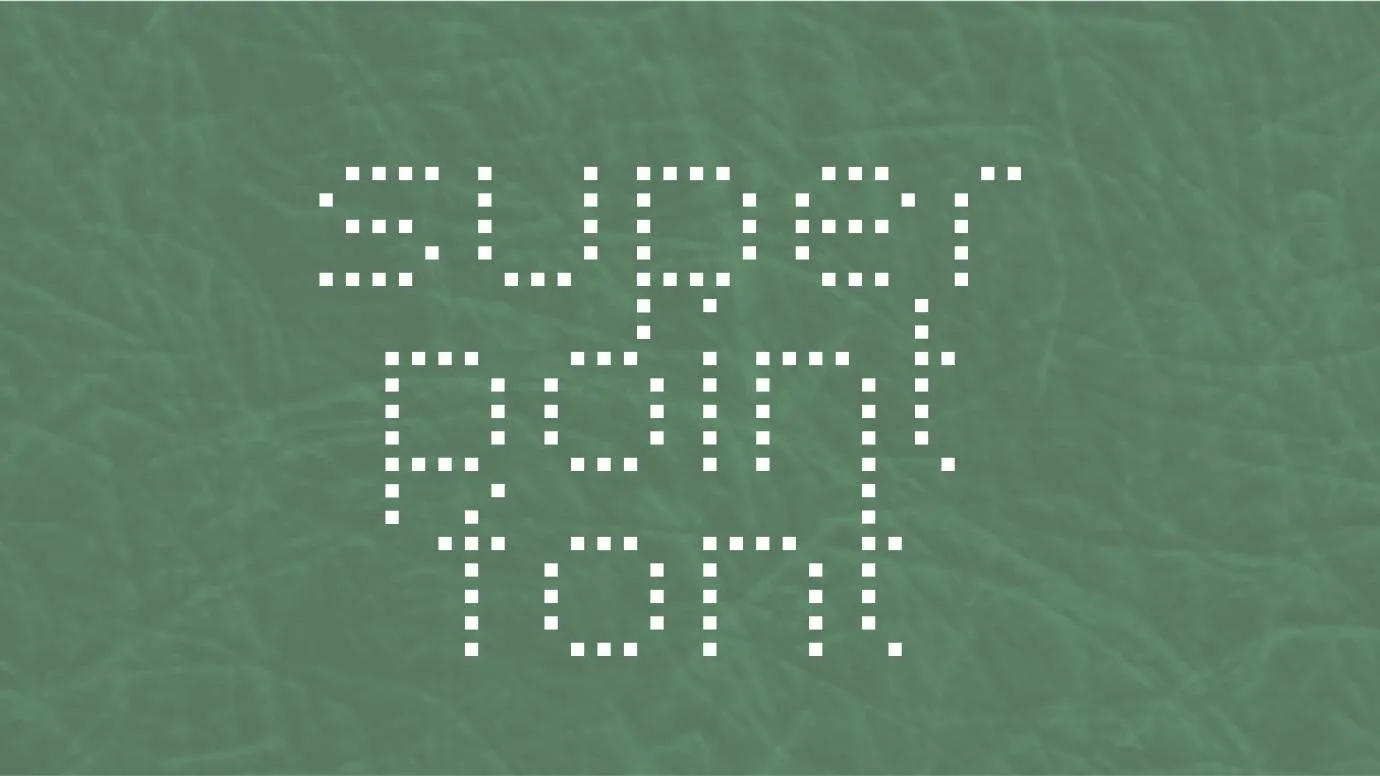
Font Introduction
Superpoint Font Family is a very famous and awesome typeface. This cute font was designed by Sven Stuber and belongs to the Fancy typeface. This classic font has a unique and stylish look that can be used in a variety of different projects. This Font was created and is still very popular to this day. This font has a very versatile style that makes it perfect for a wide range of projects, such as weddings, logos, and headings.
It contains more than 74 popular and classic Glyphs. Its two styles are the most popular. However, this font can also be used for more playful projects, such as birthday cards or party invitations. It is perfect for any project that you want to add a touch of sophistication. For converting your simple text to graphics designs you can use its generator tool.
Features of Superpoint Font
- You can use it for headings, logos, wedding invitations, and more. This font has a very versatile style that makes it perfect for any type of project.
- Many web designers used this typeface for many interesting designs such as web layouts, web headers, templates, and menus.
- In different institutes, this typeface is used for various tasks like certificates, memos, PowerPoint presentations, and formal letters. You can also use this typeface with a combination of Pring Font.
- This font has a very versatile style that is used for a wide range of projects, such as weddings, logos, homeware designs, logos of different institutes, and headings.
Details of Font
Name | Superpoint Font |
Type | Fancy |
Designer | Sven Stuber |
What is the type of Superpoint Font?
This typeface belongs to the fancy type. It was designed by Sven Stuber and is still popular to this day.
Where we can use Superpoint Font?
This stunning typeface is used for a lot of different designs such as certificates, memos, PowerPoint presentations, and formal letters.